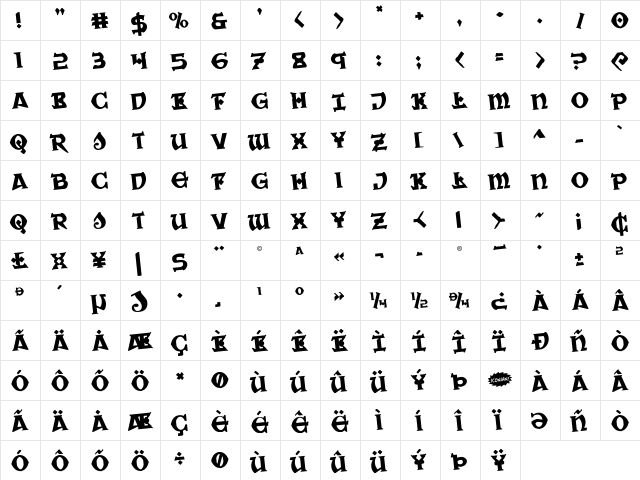
War Priest Rotate Regular
Design Context for War Priest Rotate Typeface
War Priest Rotate is a composed and adaptable typeface that performs quietly and consistently across a wide range of design contexts.